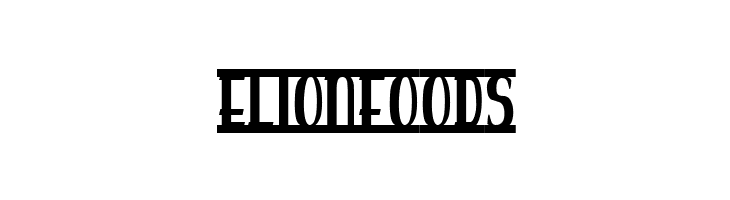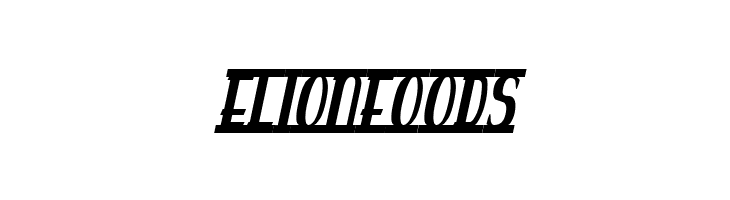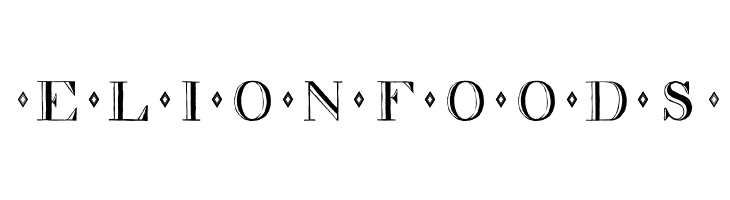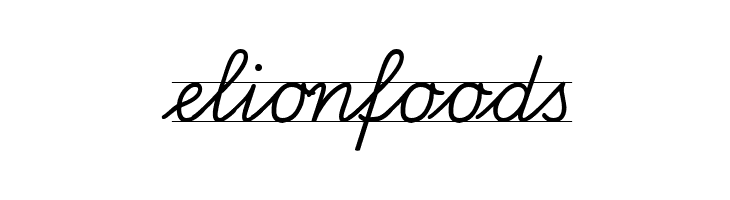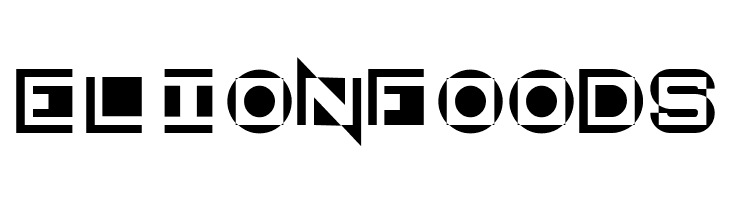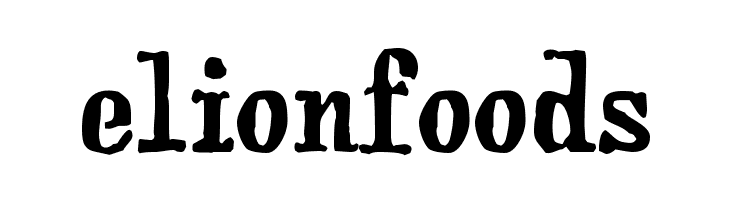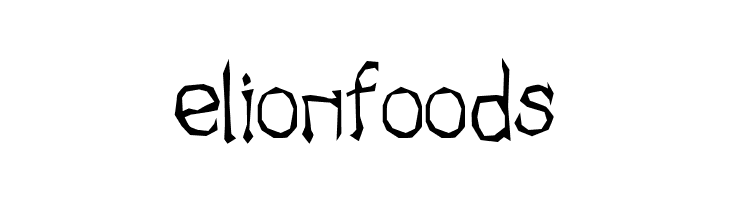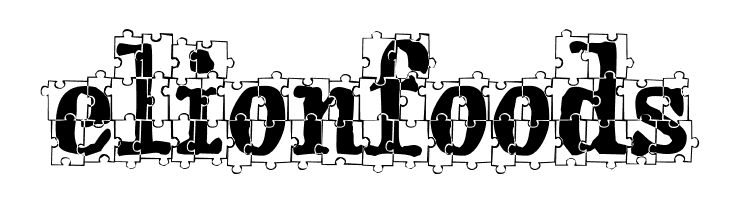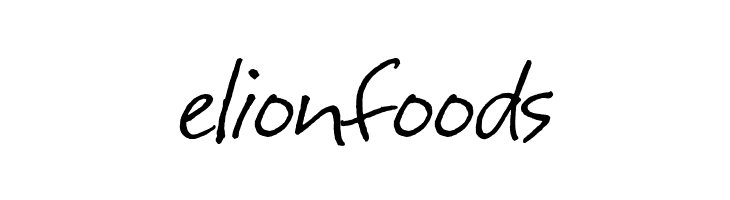
An elegant and decorative font with diamond embellishments and unique numeral styling.
A bold, geometric font with a futuristic and modern design.
A bold, textured font with a vintage, handcrafted appearance.
A jagged, edgy font with a hand-drawn appearance and sharp, angular lines.
A casual, handwritten font with a playful and informal style.
A bold, slab serif font with strong, uniform strokes for impactful design.
A bold, stencil-like font with thick, blocky strokes and sharp edges.
A bold, italicized font with a dynamic and energetic style.